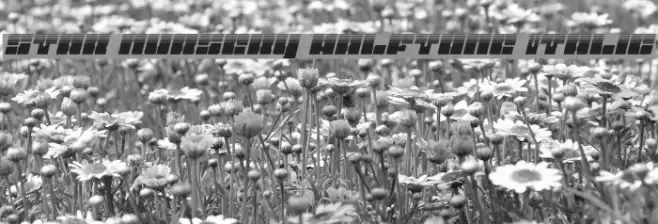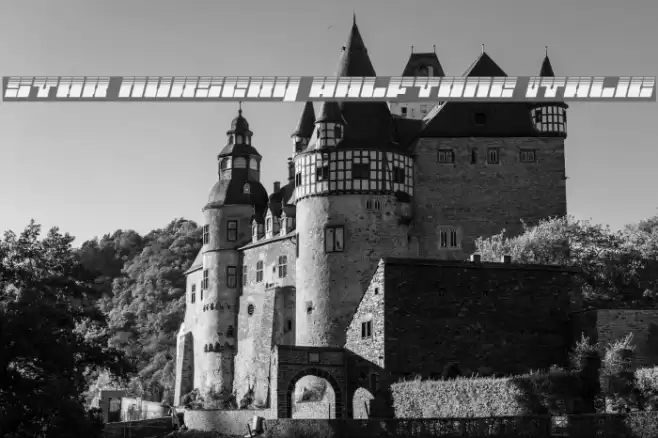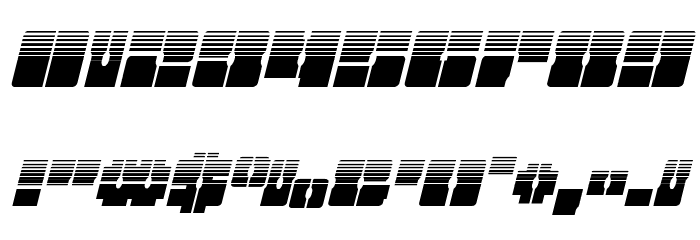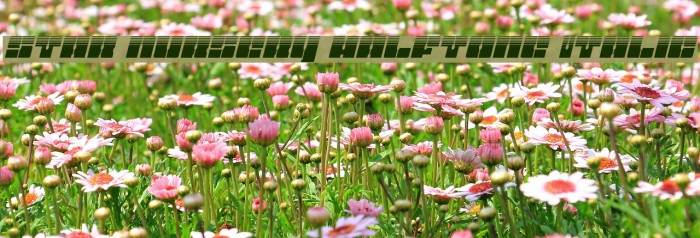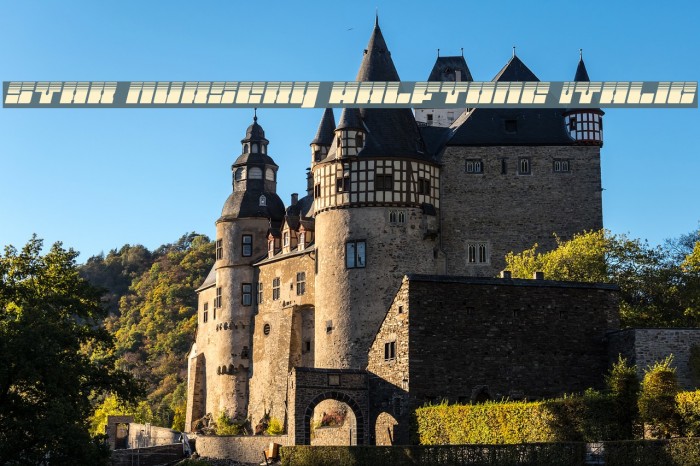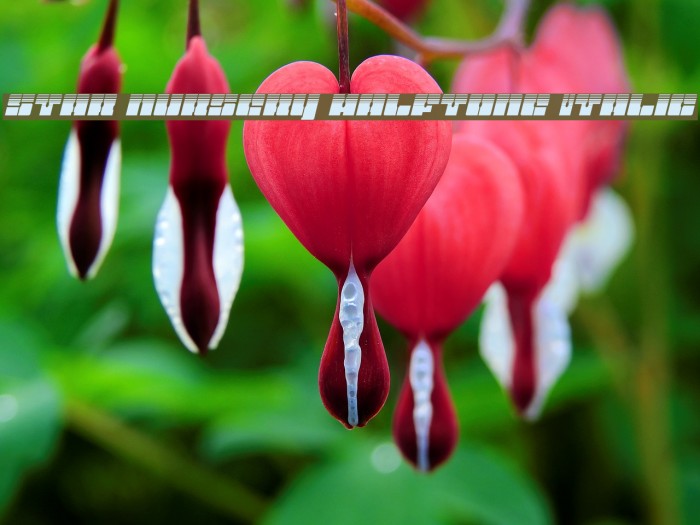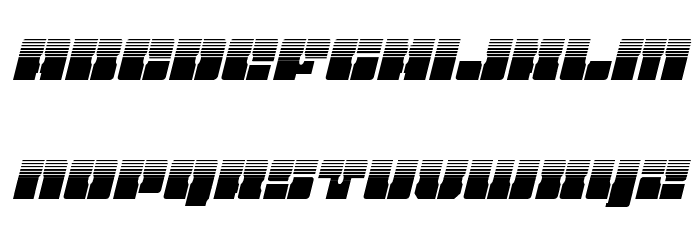
Star Nursery Halftone Italic Font
Star Nursery Halftone Italic Description
This font features a bold, italicized style with a unique halftone effect that creates a sense of movement and dynamism. The characters are constructed with horizontal lines that give a layered, textured appearance, reminiscent of retro digital displays or futuristic themes. The boldness of the font ensures high visibility, making it suitable for attention-grabbing headlines or titles. The italic slant adds a sense of speed and urgency, enhancing its modern and edgy aesthetic. The font's design is both decorative and functional, offering a distinct visual impact.
A bold, italicized font with a halftone effect, offering a dynamic and modern look from Uncategorized fonts.
- Proposed Projects: Ideal for futuristic branding, tech-related projects, posters, and digital media that require a striking visual element.